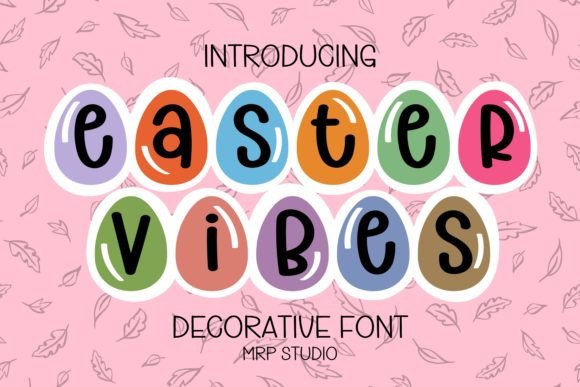
Welcome to the world of Easter Vibes Font - a cute and adorable decorative font style that will add a fun and playful touch to any project! Created by MRP STUDIO, this font is the perfect choice for anyone looking to add a unique and eye-catching element to their design.
If you're looking for a font that will help you capture the essence of Easter and all things spring, look no further than Easter Vibes. With its fun, playful design and charming style, this font is the perfect way to add a touch of whimsy to any project.
Easter Vibes is also an excellent choice for child-related projects. Whether you're working on back-to-school materials, birthday party decorations, or any other project that needs a bright and fun touch, this font is sure to delight children of all ages.
One of the standout features of Easter Vibes is its ability to mimic handwriting. This makes it a great choice for any project that requires a personal touch. Whether you're creating invitations, greeting cards, or other personalized items, Easter Vibes will help you achieve the perfect look.
In addition to its playful style, Easter Vibes is also highly versatile. It works well with a wide range of design styles, from modern and minimalist to bold and colorful. This makes it a great choice for a variety of projects, whether you're creating a logo, a poster, or anything in between.
In summary, if you're looking for a font that will help you capture the spirit of Easter and add a playful touch to your designs, Easter Vibes is the perfect choice. With its cute and adorable decorative font style, versatility, and ability to mimic handwriting, this font is sure to become a go-to for any designer or creative looking to add a fun and whimsical element to their work.